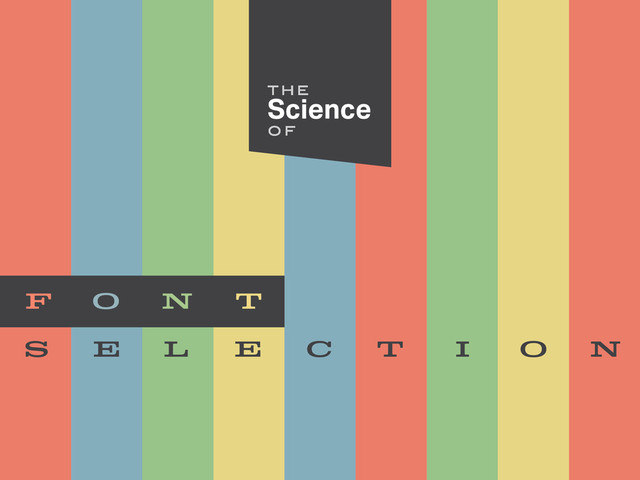
The Science of Font Selection
The Science of Font Selection
Design Orlando #31: The Science of Font Selection
1. Typographer Family Avant Garde Style, Weight Gothic (Pro), Bold Designer(s)
Herb Lubalin, Tom Carnase Year 1970–1977 Genre Sans serif Subgenre Geometric Digital Cut ITC (2005) X-height 75% 0054 0079 0070 006F 0067 0072 0061 0070 0068 0065 0072
2. I think of myself an
The thing I design
is manufactured and it has a function:
to be read, to convey meaning. INDUSTRIAL DESIGNER. Matthew Carter Georgia, Verdana, Tahoma, Kepler, Miller
3. 1. Old Style 2. 3. 1400 – 1600 1600 –
1900 1900 – PRESENT Sans Serifs Modern Serifs
4. 1 2 3 Q Q Q Q Q p p
p p p e e e e e T T T T T
5. 1 2 3 Sans serif G G G Q Q
Q t t t 1900 - present
6. Carefully consider what the typography needs to before scrolling through
that bloated font menu. KEN BARBERS House Industries ACCOMPLISH